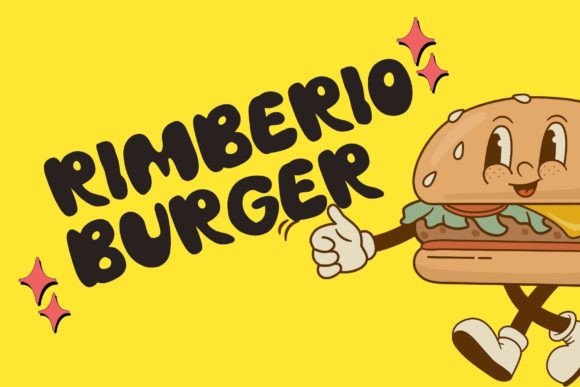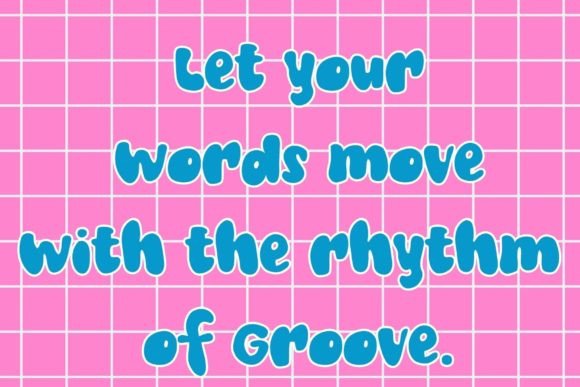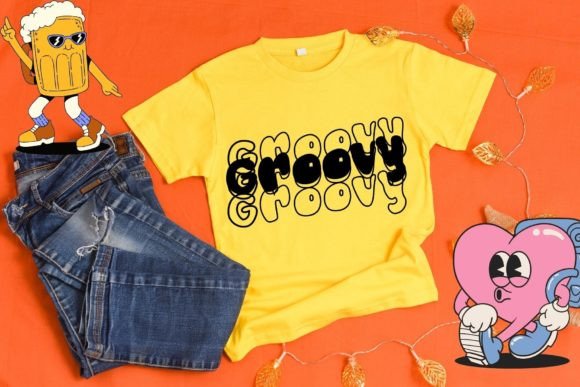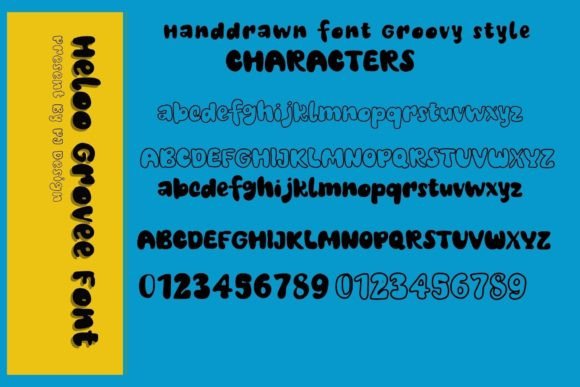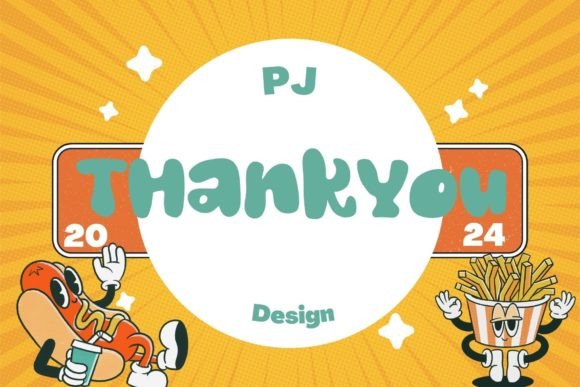
Welcome to the Groovy World of Heloo Grovee Font
Have you ever sat in front of a blank canvas, surrounded by endless possibilities, and thought to yourself, “This design needs a little something extra”? That’s where the magic happens, and the perfect font can make all the difference. For designers looking to add a touch of retro flair to their projects, we’ve got just the thing – the Heloo Grovee Font.
This playful and bold typeface is designed to bring a groovy twist to your designs, making every word pop with personality. Whether you’re working on a branding project, creating a social media campaign, or designing a website, the Heloo Grovee Font is the perfect addition to your toolkit. Its unique style and modern flair make it a valuable asset for any designer looking to take their work to the next level.
Heloo Grovee Font Key Features
- Font Family: Heloo Grovee
- Unique Characteristic: The font features a unique blend of modern and vintage elements, with a mix of geometric and organic shapes.
Review of Heloo Grovee Font
Overall, I think Heloo Grovee Font is a solid choice for designers looking for a fun, playful font. Here are some things that work well: ✨
- Unique character set: The font’s eclectic mix of letters and symbols adds a lot of personality to any design.
- Fun and playful feel: Heloo Grovee Font is perfect for projects that need a bit of whimsy and charm.
- Easy to read: Despite its unconventional look, the font is still easy to read and understand.
- Limited flexibility: Heloo Grovee Font is best suited for informal projects or branding that requires a lot of personality.
- May not be suitable for formal or professional applications.
- Some characters may not render well in certain contexts.
Overall, I think Heloo Grovee Font is a great addition to any designer’s toolkit. While it may not be the best choice for every project, it’s definitely worth considering for projects that require a bit of flair and personality.